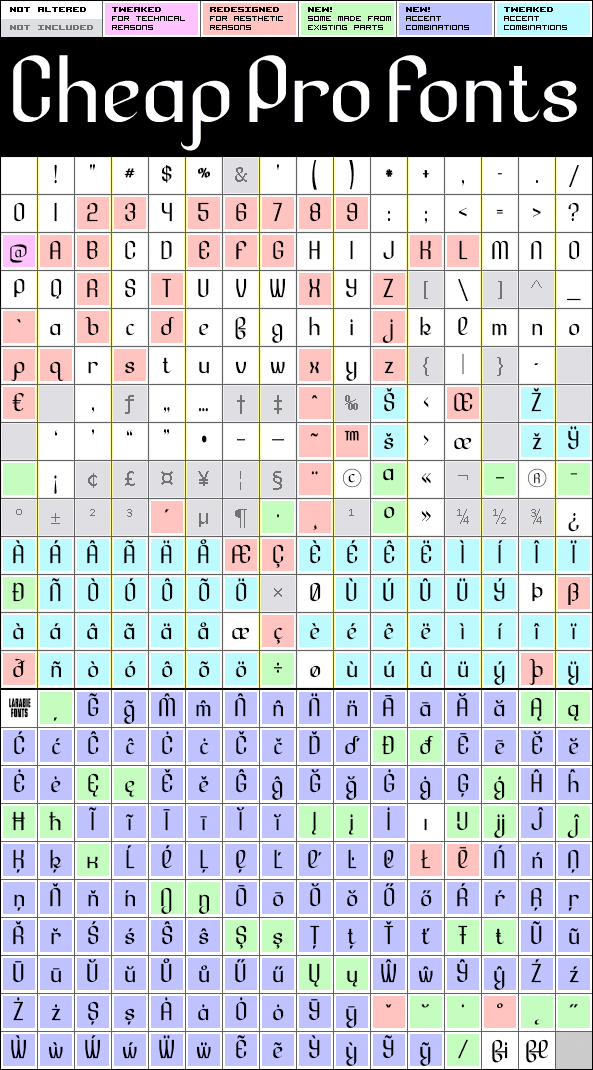
Lesser Concern Pro
Lesser Concern Pro by Ray Larabie
Highlights:
348 glyphs!
(189 in original)
158 class kernpairs
= 2074 kerning pairs
(76 in original)
Description:
This font almost looks like a ribbon - perfect for wrapping up your christmas message :) I have just regularized some forms and heights before expanding the character set.
Ray Larabie says: "A font with semi-cursive forms, drawn with a nib."
Lesser Concern Pro is a professionally reworked font that contains an extended character set for setting text in 65 languages requiring more than the basic A-Z!